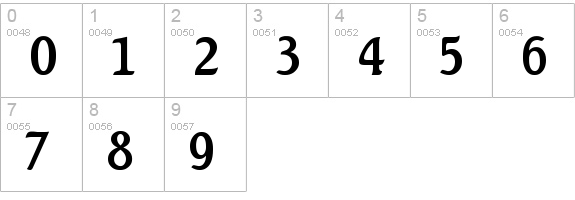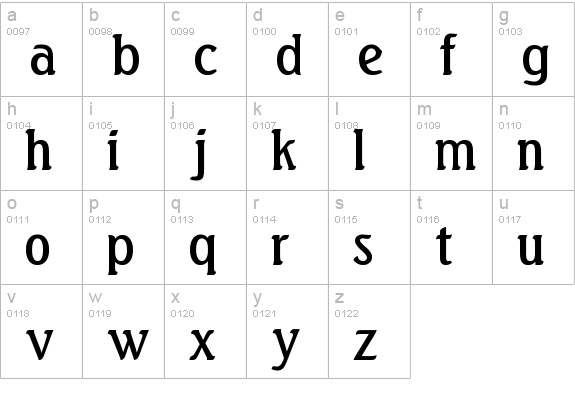
Linda Font Details
Linda font is a stylish and versatile typeface that exudes elegance and sophistication. With its sleek lines and modern design, Linda font is perfect for a wide range of projects, from branding to editorial design. This font is free to download at FontsMarket.com, making it accessible to designers and creatives looking to add a touch of elegance to their work. Whether you're creating a logo, website, or printed materials, Linda font is sure to make a statement and elevate your designs to the next level. Embrace the beauty and versatility of Linda font today and see the difference it can make in your projects.